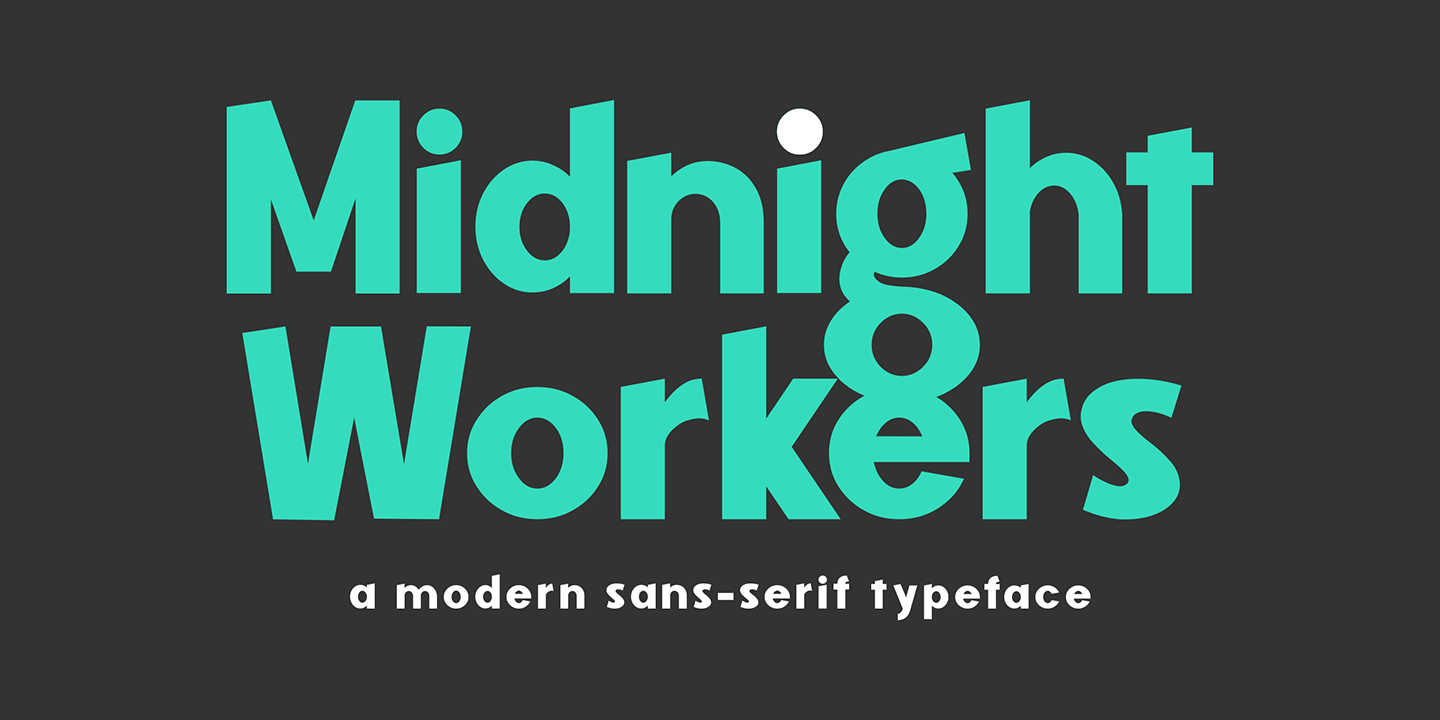
Midnight Workers Font is perfect for night shift service branding, 24-hour business communications, overnight delivery company logos, late-night diner signage, emergency services marketing, security company materials, nocturnal work force promotions, and graveyard shift appreciation campaigns. This dedicated typeface excels in applications where night-time reliability, round-the-clock service, and hardworking dedication are essential for connecting with audiences who depend on essential services that operate when the rest of the world sleeps.
What makes Midnight Workers Font so exciting is its steadfast embodiment of nocturnal dedication and after-hours reliability that perfectly captures the essence of essential night work and the unwavering commitment of those who keep society functioning through the darkest hours. The font features strong, dependable letterforms with industrial characteristics that evoke streetlights and late-night work environments. Its reliable character conveys dedication, perseverance, and essential service - essential qualities for brands serving night-shift communities, 24-hour operations, and audiences who appreciate the hardworking individuals who provide critical services during overnight hours when most people are sleeping.
The Midnight Workers Font family includes multiple reliable weights and night-shift inspired variations that enhance its hardworking appeal. Some versions feature subtle illuminated elements that simulate streetlights and night-time work environments, while others provide bold variants that maintain the font's dependable character with enhanced visibility for professional night-service applications and commercial round-the-clock business communications.
Whether you're creating branding for overnight services, designing materials for night-shift workers, or developing marketing campaigns for 24-hour businesses, Midnight Workers Font Free Download provides the reliable authority your project requires. The font's dedicated character makes it particularly effective for brands targeting night-shift workers and audiences who appreciate essential overnight services, round-the-clock reliability, and the hardworking dedication of midnight heroes.
Work through the night with Midnight Workers Font and illuminate your brand communications with typography that honors the dedicated service of overnight workers and essential night-time operations.